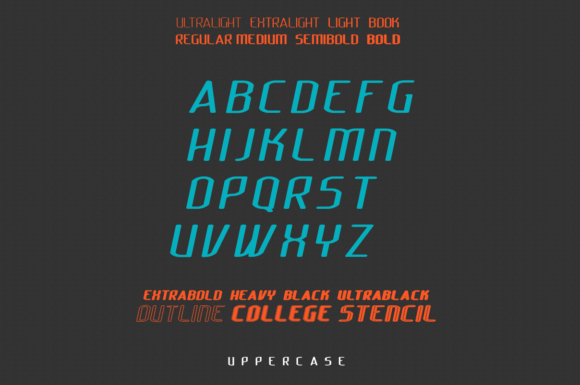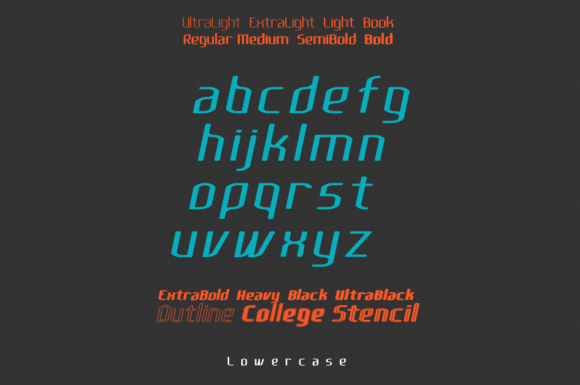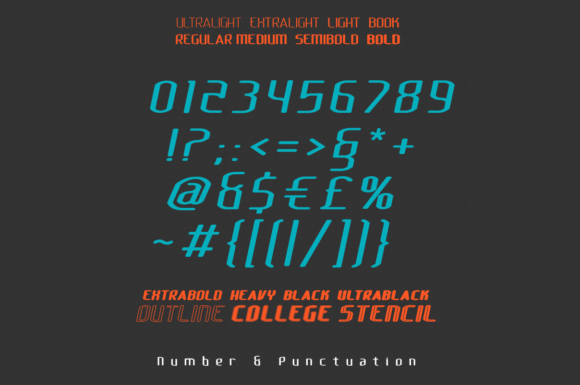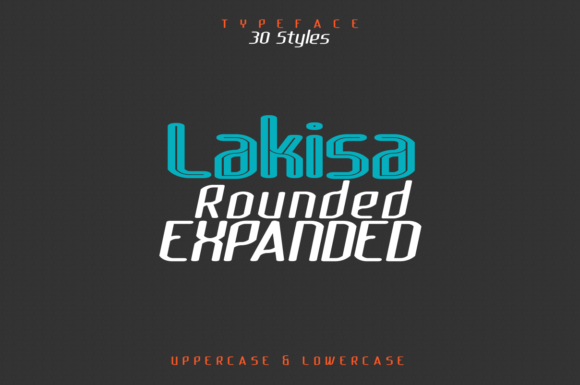
Introduction to Lakisa Rounded Expanded  Font
Lakisa Rounded Expanded is a gorgeous sans serif with a modern and futuristic feel.
With its neat and balanced arrangement of letters, this typeface will look outstanding in both formal and non-formal designs .
Key Features of Lakisa Rounded Expanded  Font